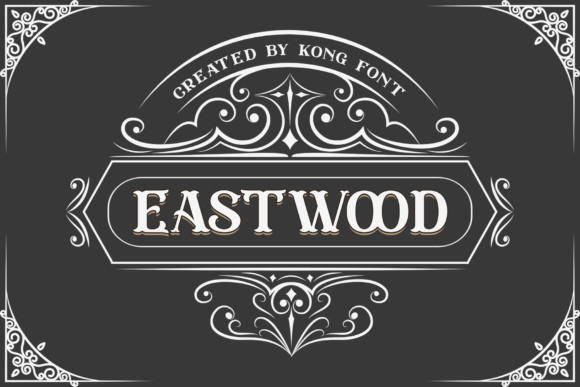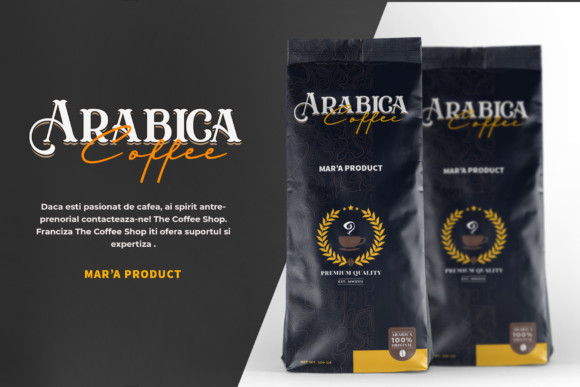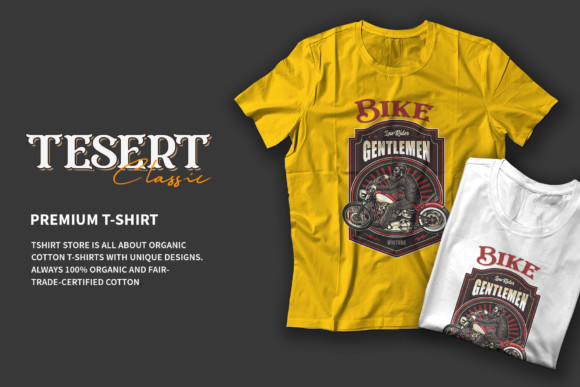
Eastwood Font
Eastwood is a unique serif font, carefully handcrafted to become a true favorite. Its casual charm makes it appear wonderfully down-to-earth, readable and, ultimately, incredibly versatile. This font will look outstanding in any context, whether it’s being used on busy backgrounds or as a standalone headline!